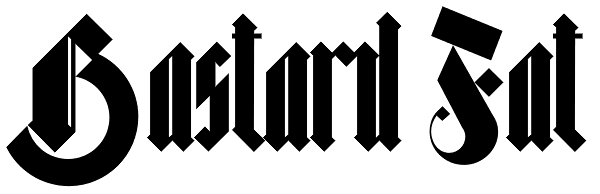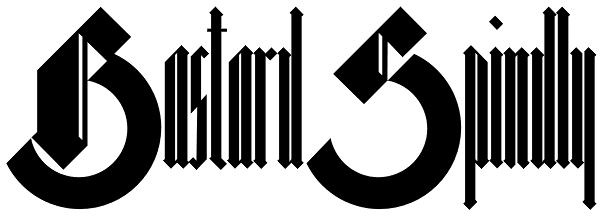
Bastard
Bastard was an attempt to draw blackletter forms in a modern context I thought it should be acknowledged that they were drawn on a computer, not just a copy of characters drawn with a broad-nibbed pen. A set of modular parts was devised to construct...
Bastard Even Fatter
Bastard Fat
Bastard Spindly